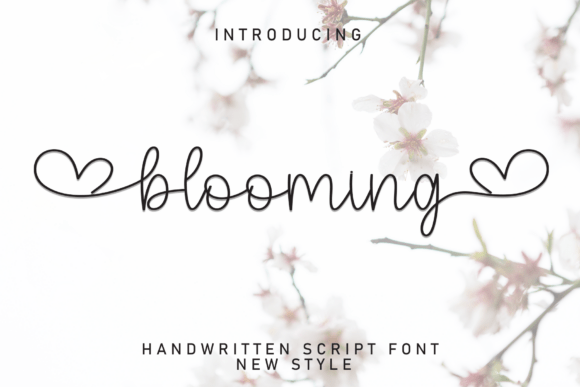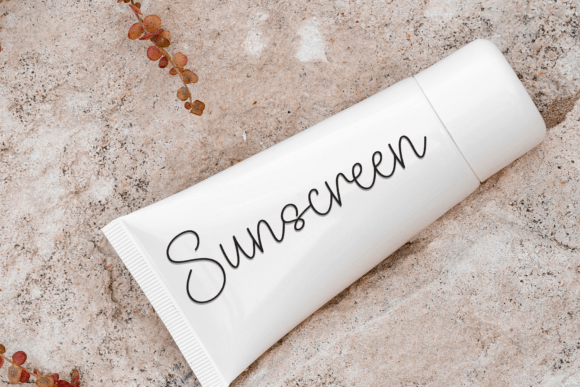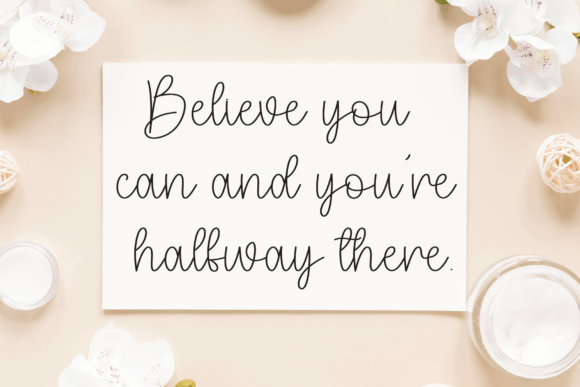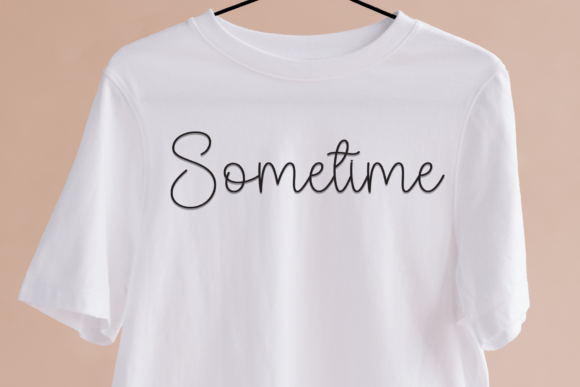
About the Blooming Font
We are excited to introduce Blooming Font, a must-have typeface for any serious designer. Blooming is a stylish handwritten script font that blends modern elegance with a playful touch. Its fluid strokes and charming curves bring a personal feel to any design. Ideal for logos, packaging, and invitations, this typeface adds warmth, sophistication, and creativity to every project.